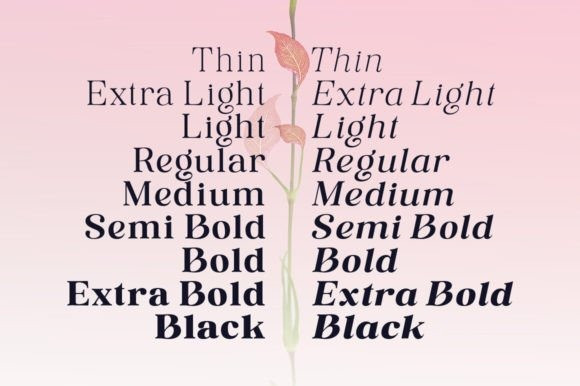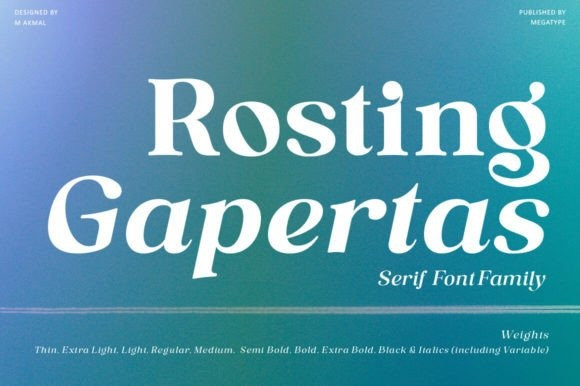
Rosting Gapertas Font
Rosting Gapertas Font is inspired by serif typefaces from the 70s and 80s. Rosting Gapertas is a soft and elegant yet sturdy serif family that mixes retro casual undertones with a modern feel. Designed to convey a sense of tenderness and natural expression with a sense of the present to function as a bold tool and a beautiful communicator. Rosting Gapertas comes in 9 different weights from Thin to Black with 2 styles (Standard & Italic).
The variety of weights provides a wide range of choices that will help you find the best typography colors for your project. Lighter weights are suitable for body text, while heavier weights are ideal for high-impact titles. The available ligatures and style alternatives offer a number of different characters that give your branding, editorial, packaging logo, and other projects a unique and eye-catching look.